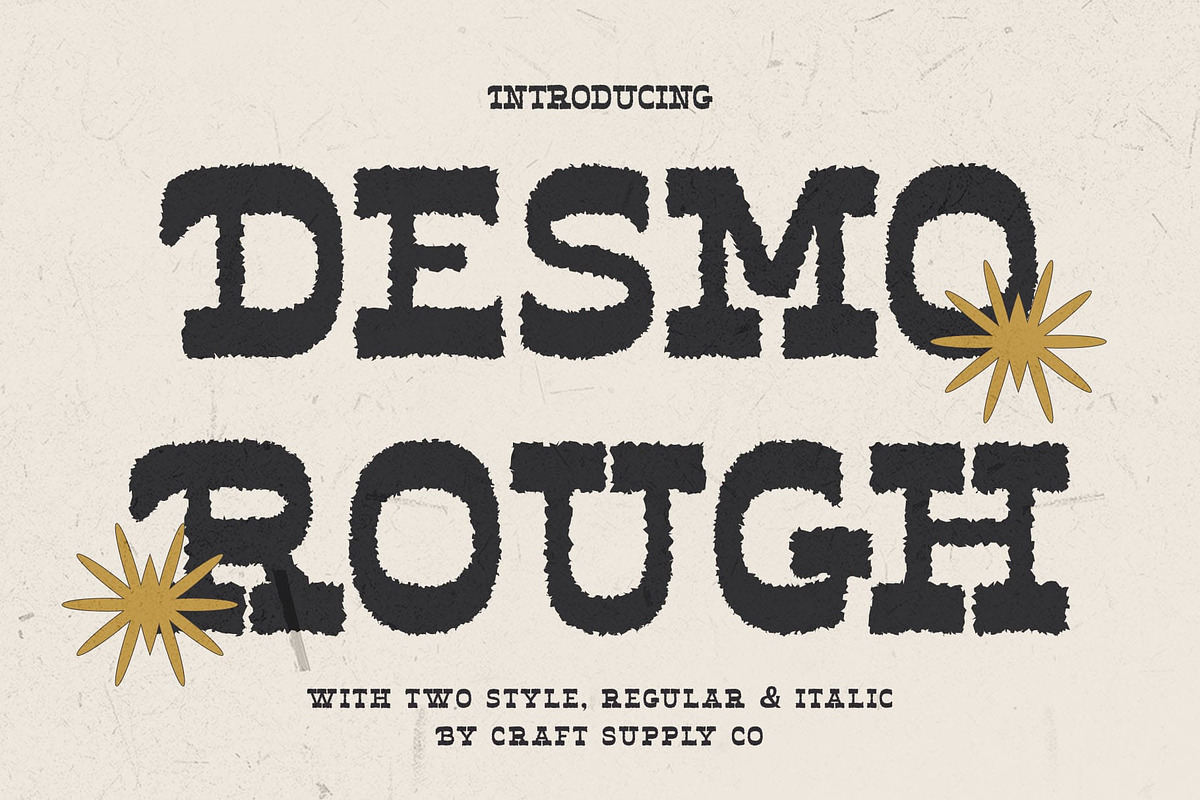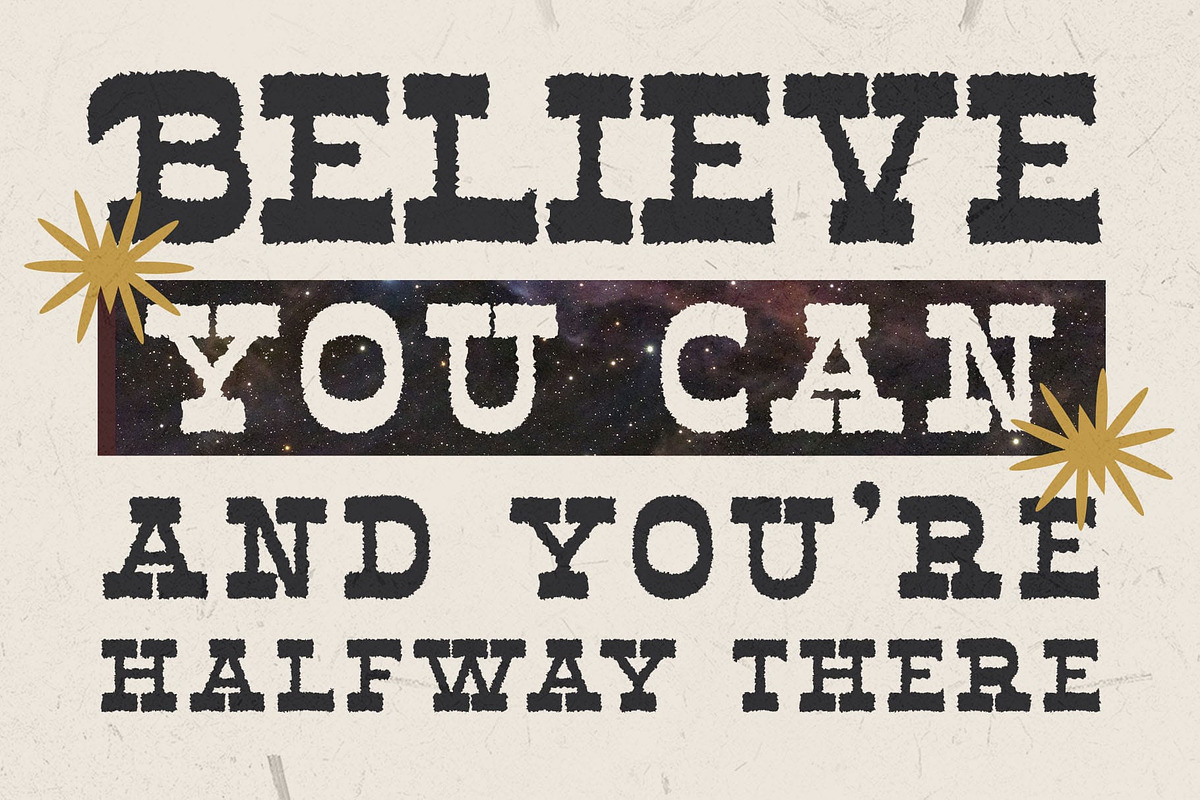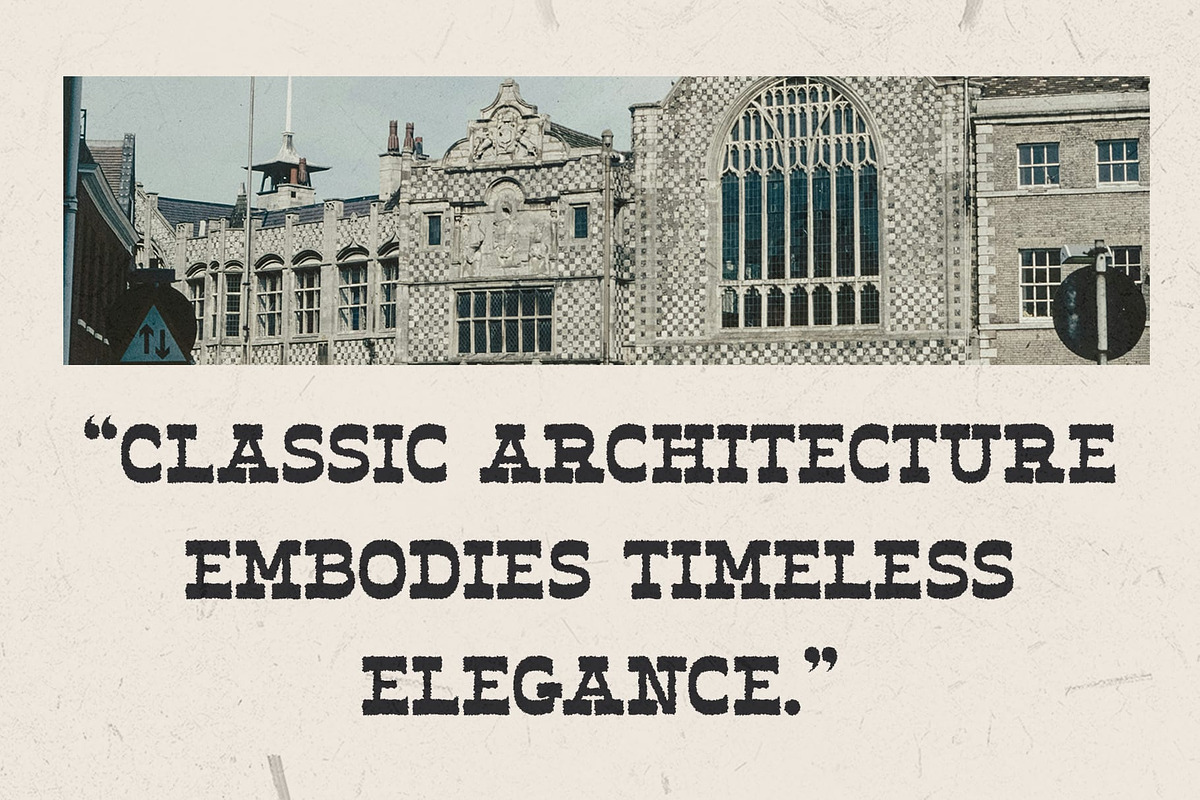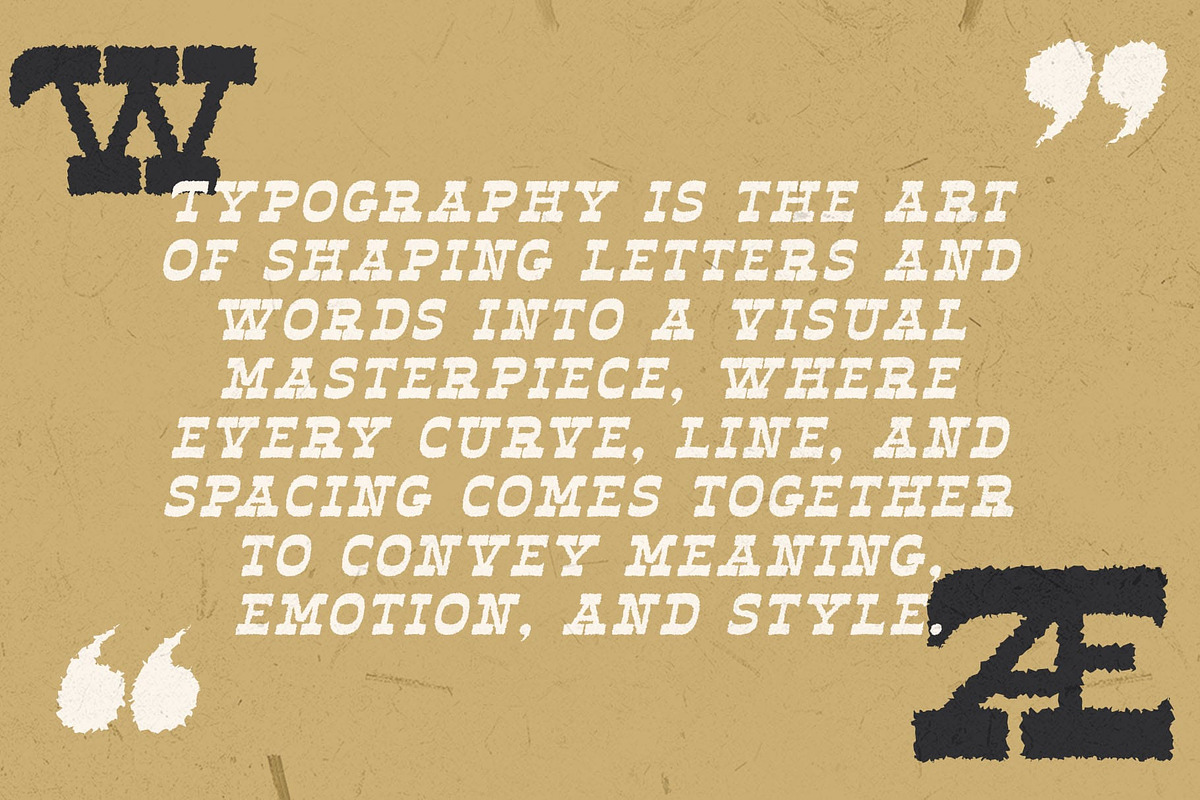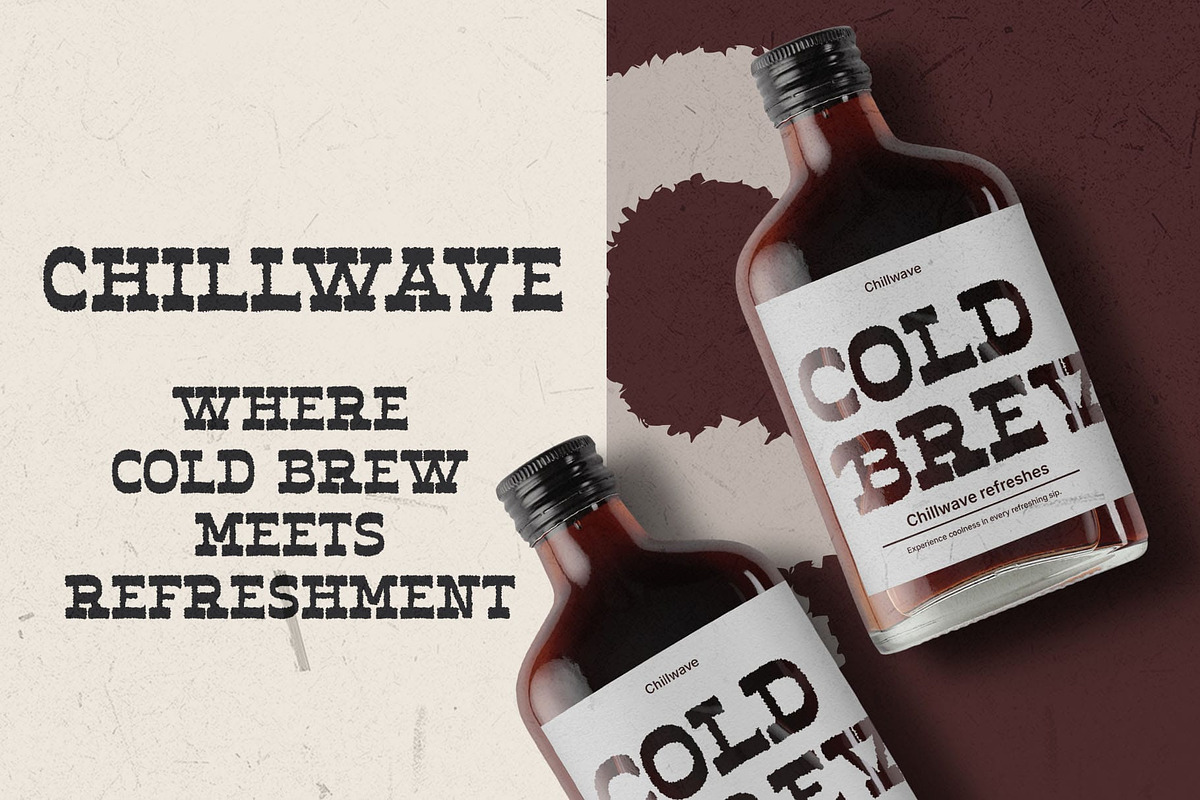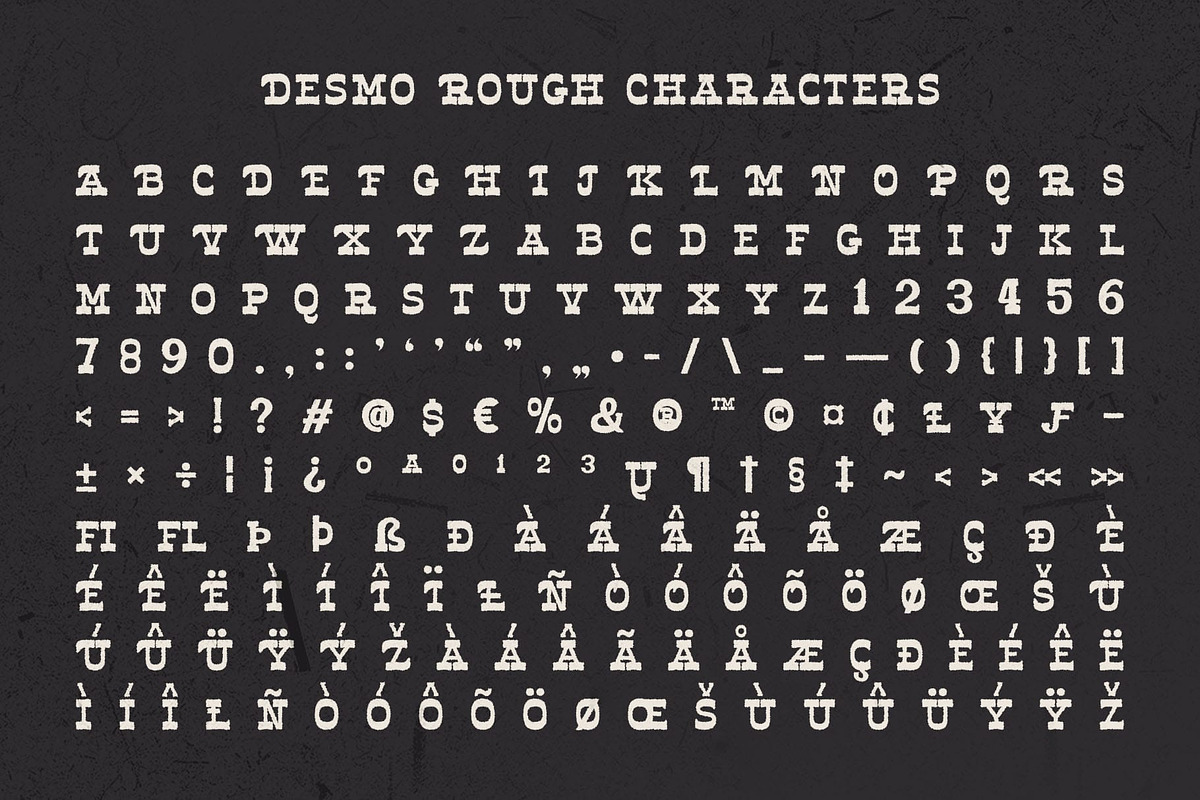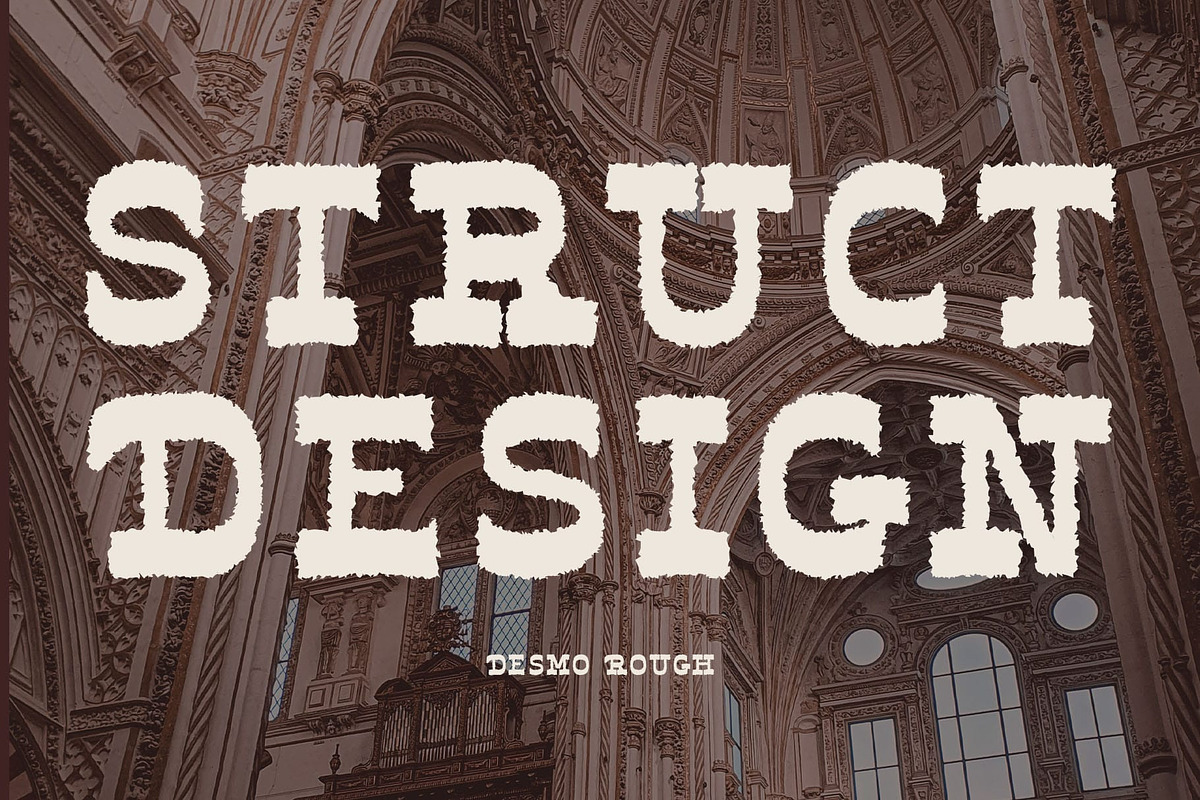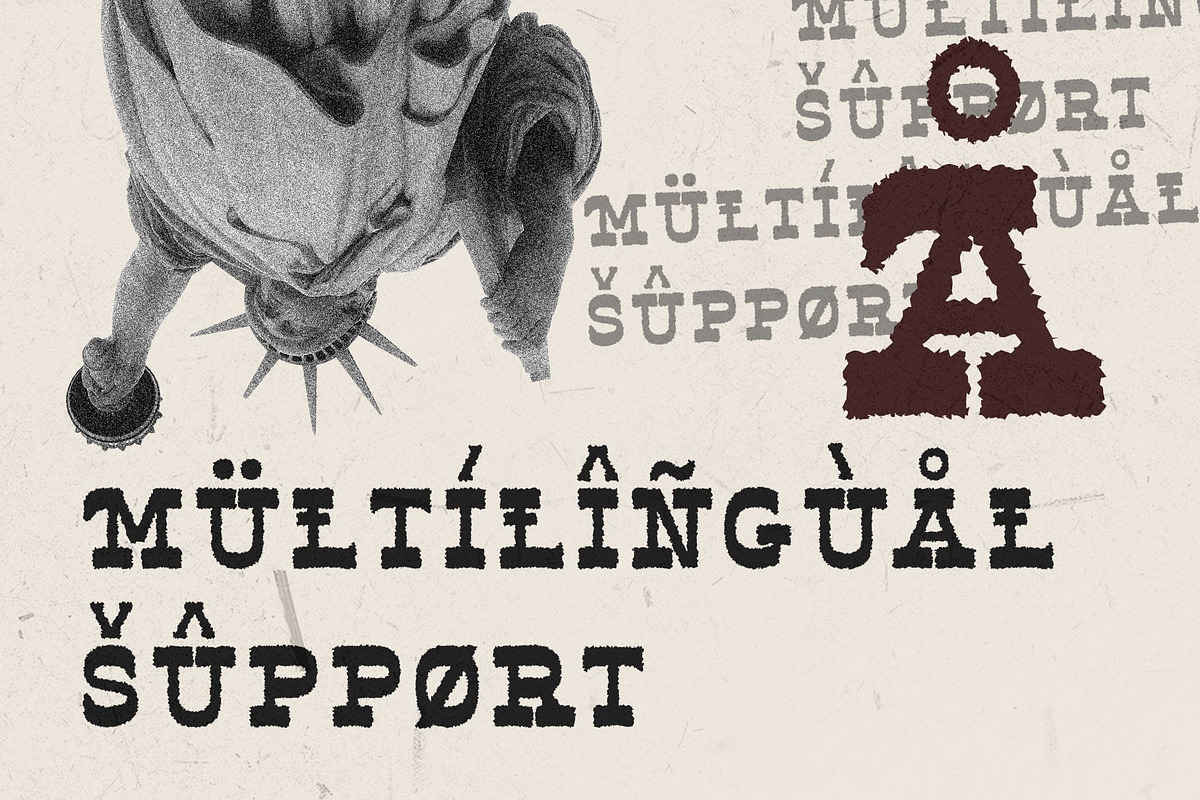
Desmo Rough
Desmo Rough Font: Bold Slab Serif with a Modern Edge
Reverse Contrast for a Unique, Commanding Look Desmo Rough is a slab serif font that combines bold, thick serifs with an innovative reverse contrast, where the usual letterform proportions are flipped. This striking design choice gives the font a powerful and distinctive presence, making it stand out in any project. The reverse contrast imparts a modern edge to the otherwise classic slab serif design, offering a fresh take on vintage typography.
Rugged Texture with a Distressed Appeal The rough effect applied to Desmo Rough adds an extra layer of character, giving it a textured, worn-in feel. The distressed look enhances the font’s rugged charm, lending it an aged, rebellious vibe. This texture evokes a sense of authenticity and strength, making it ideal for designs that want to convey a sense of toughness or a vintage aesthetic with a modern twist.
Vintage, Retro Aesthetic with a Bold, Modern Twist Drawing from retro influences, Desmo Rough channels a nostalgic, old-school vibe. The bold letterforms and reversed contrast recall classic typefaces but with a contemporary update. This balance of vintage charm and modern edginess makes Desmo Rough perfect for projects that need to make a statement, whether for branding, posters, or creative designs looking to evoke a sense of rebellion and strength.